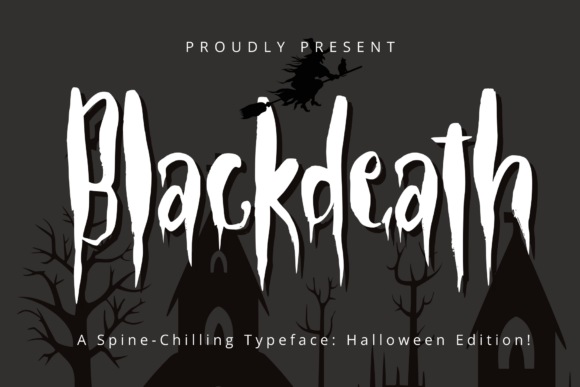
The Frightful Charm of Blackdeath Font: A Designer’s Delight
I still remember the Halloween project that pushed me to the edge. I was working on a haunted house invitation, and no matter how hard I tried, I just couldn’t find the right font to capture that spooky essence. The letters seemed dull, and the atmosphere was flat. That’s when I stumbled upon the Blackdeath font, and it was love at first sight! 💀
Blackdeath is a horror display font that embodies the spirit of Halloween with its dripping blood and eerie vibes. Its sharp strokes and terrifying liquid style make every letter look alive with fear. This font is perfect for Halloween posters, haunted party invitations, creepy quotes, horror movie titles, and any design that needs a chilling touch.
An Honest Review of Blackdeath Font
What I Love About Blackdeath Font
- ✨ Unique and eye-catching design: Blackdeath font is unlike any other font I’ve seen. Its dripping blood effect and sharp strokes make it a standout in any design.
- ✅ Perfect for horror-themed designs: Whether you’re working on a Halloween project or a horror movie title, Blackdeath font is the perfect choice.
While Blackdeath font is amazing, there are a few things to keep in mind: 🤔
- ⚠️ Legibility at small sizes: Due to its intricate design, Blackdeath font may not be legible at small sizes. It’s best used at larger sizes to make an impact.
- ⚠️ Limited use cases: While Blackdeath font is perfect for horror-themed designs, it may not be suitable for other types of projects, such as formal invitations or business documents.
The Backstory of Blackdeath Font
Blackdeath font was designed by a team of creatives who wanted to capture the essence of Halloween in a font. Inspired by the spooky atmosphere of haunted houses and horror movies, they created a font that’s both terrifying and beautiful. The font’s dripping blood effect and sharp strokes are meant to evoke a sense of fear and unease, making it perfect for horror-themed designs.
Q: What type of designs is Blackdeath font best suited for?
A: Blackdeath font is perfect for horror-themed designs, such as Halloween posters, haunted party invitations, creepy quotes, and horror movie titles.
Q: Is Blackdeath font easy to read?
A: Blackdeath font is a display font, so it’s best used at larger sizes to make an impact. At smaller sizes, the font may be difficult to read due to its intricate design.